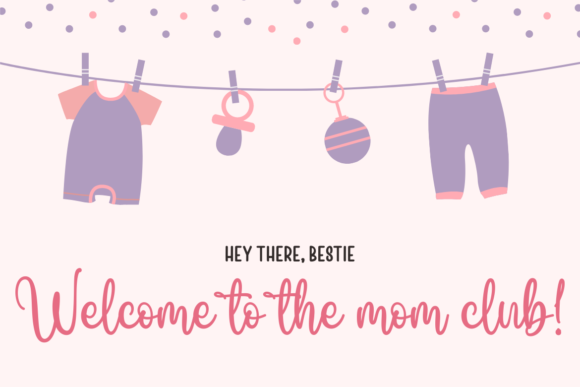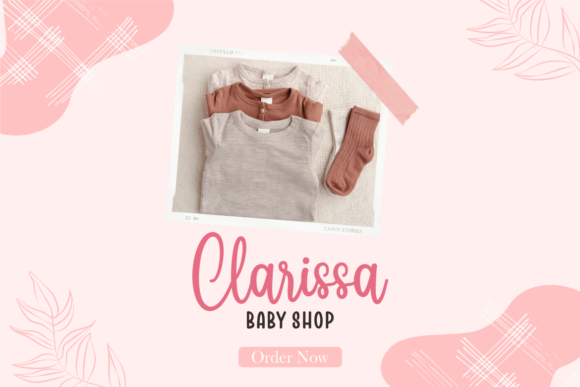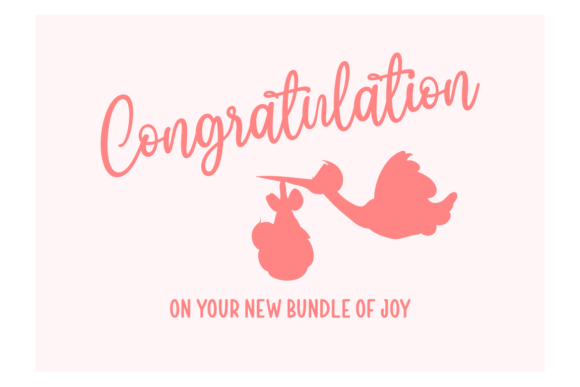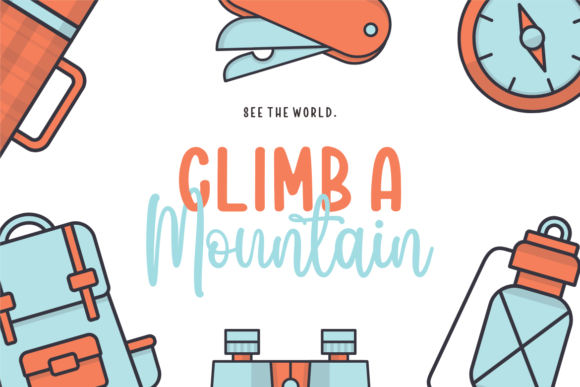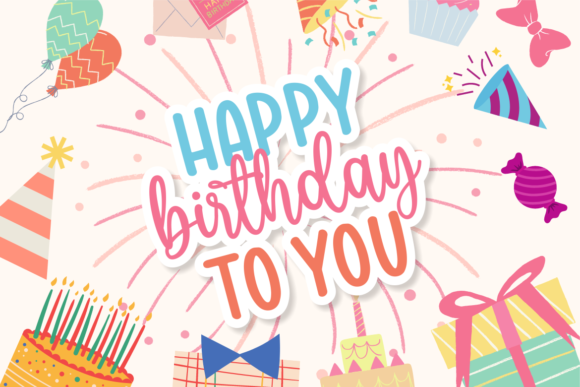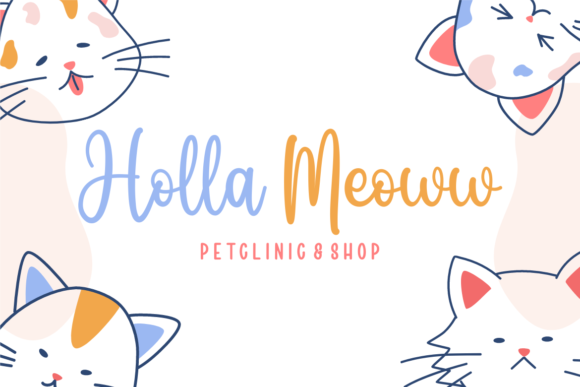
The Birth of a Beauty Font: A Creative Dream Come True
Have you ever stared at a blank canvas, trying to capture the essence of love and romance in your design? That’s exactly what happened to us when we created the Birth of a Beauty Font. As designers, we’ve all been there – struggling to find the perfect font that conveys the emotions we want to express. And that’s where our beautiful duo font comes in, carefully crafted to add a touch of elegance and whimsy to your creations.
The Birth of a Beauty Font is a stylish and delicate combination of script and sans serif, designed to work seamlessly across a wide range of applications, from greeting cards to headlines. Whether you’re a seasoned designer or just starting out, this versatile font is sure to become your go-to choice for adding a romantic touch to your projects.
Birth of a Beauty Font Key Features
- Font Family: Birth of a Beauty Font is a unique and elegant font designed for various applications.
- Unique Characteristics: Features intricate details, flowing lines, and a touch of luxury, making it perfect for high-end designs, such as luxury branding, fashion, and beauty applications.
Designer Review: Birth of a Beauty Font
Overall, I think Birth of a Beauty Font is a unique and visually striking font. It has a distinct, elegant feel to it that would be perfect for a variety of projects.
- ✨ Beautiful, flowing lines that give the font a sense of movement and dynamism.
- ✨ The font’s elegant feel makes it perfect for high-end projects, such as luxury branding or wedding invitations.
- ✨ The font is highly versatile, making it suitable for a wide range of applications, from body text to headlines.
- ⚠️ Some characters may appear slightly distorted or inconsistent, which could be a concern for professional use.
- ⚠️ The font may not be suitable for projects that require a more modern or edgy feel.
- ⚠️ Some users may find the font’s elegance too ornate, which could make it difficult to read in certain contexts.
Overall, I would recommend Birth of a Beauty Font to designers who are looking for a unique, elegant font that is perfect for high-end projects. However, it may not be the best choice for more modern or edgy designs.
The Birth of a Beauty Font is perfect for:
– Creating elegant and sophisticated designs
– Adding a touch of luxury to your branding
– Making a statement with bold and eye-catching headings
– Designing high-end fashion and beauty products